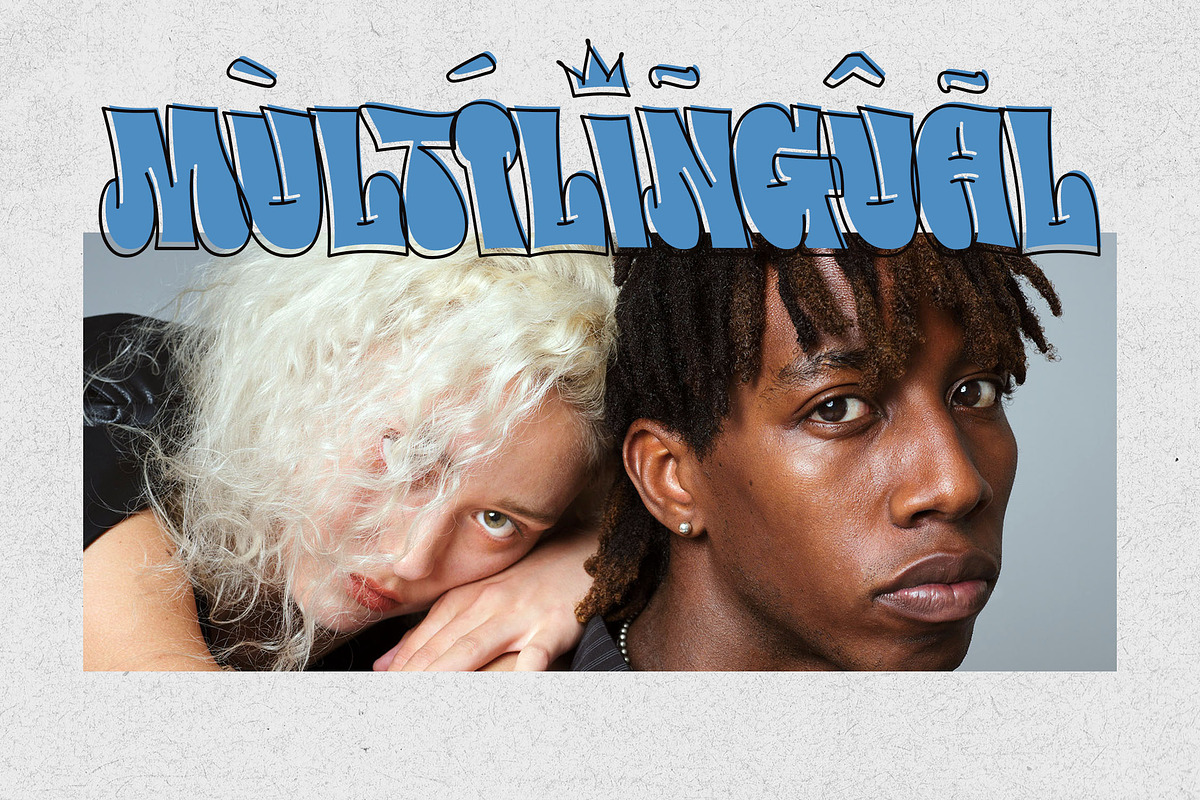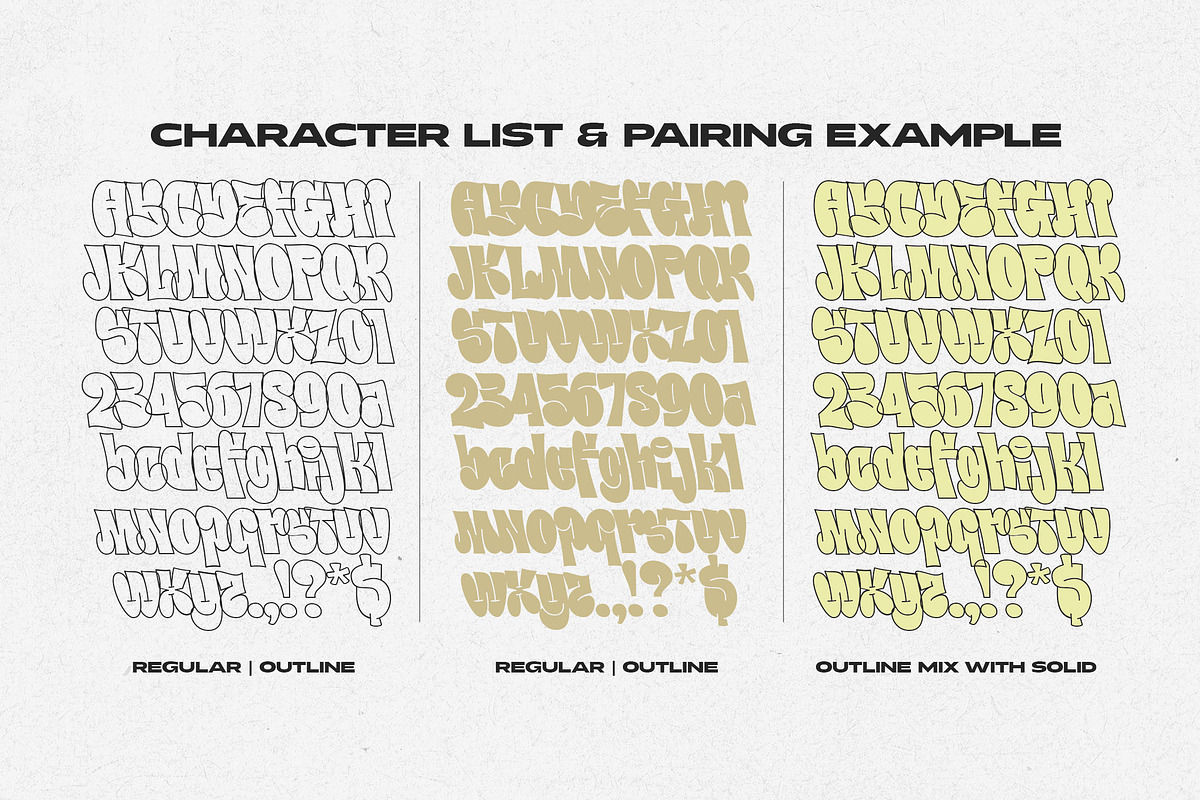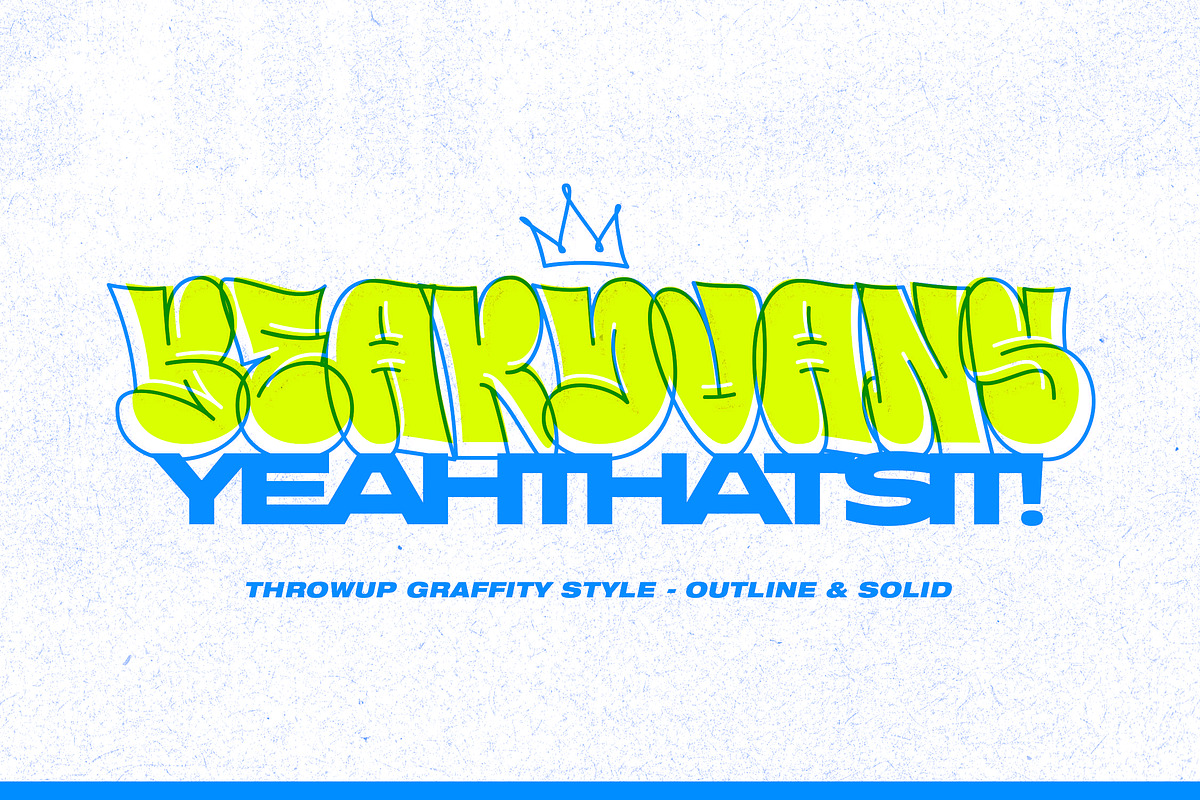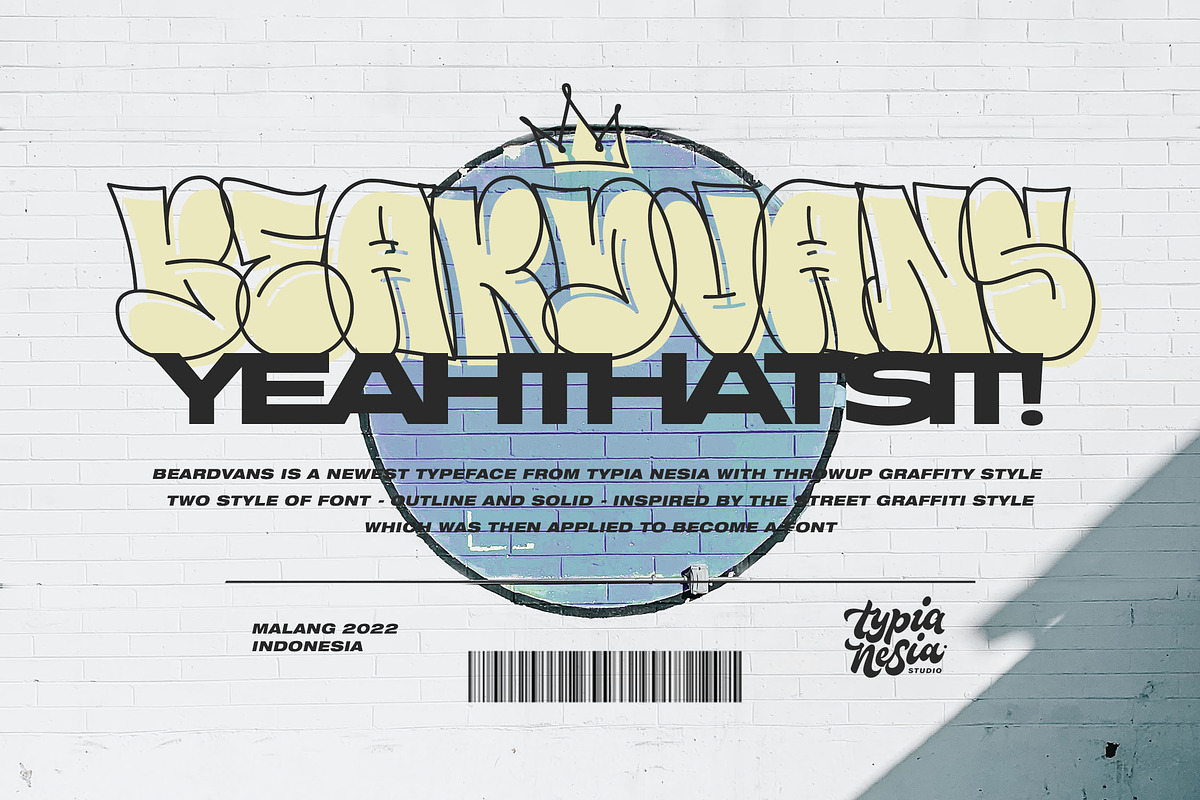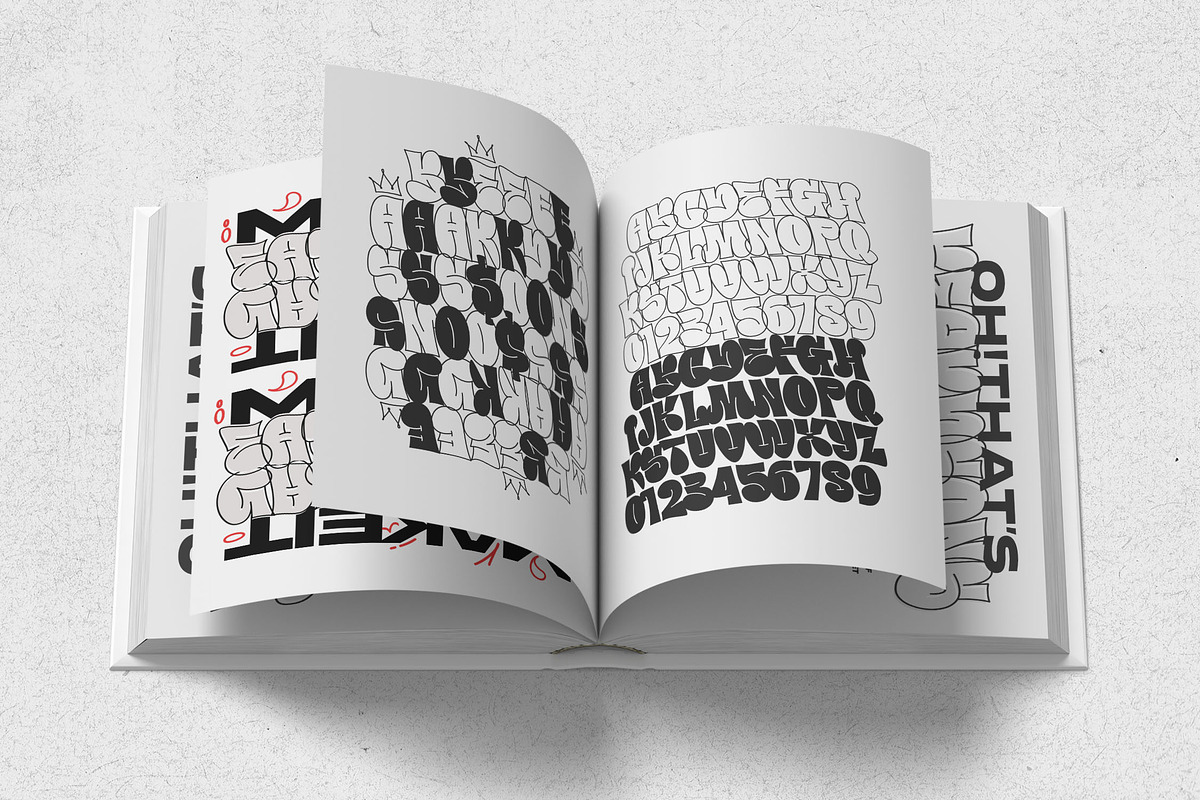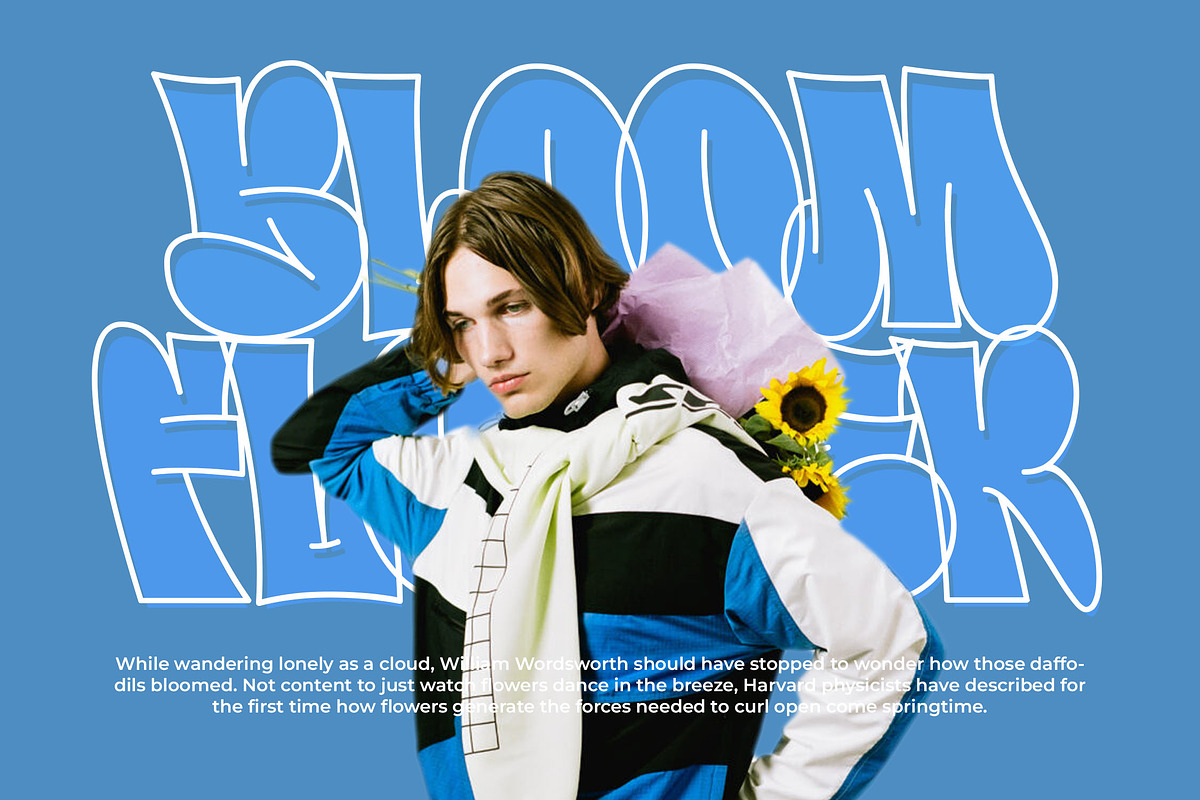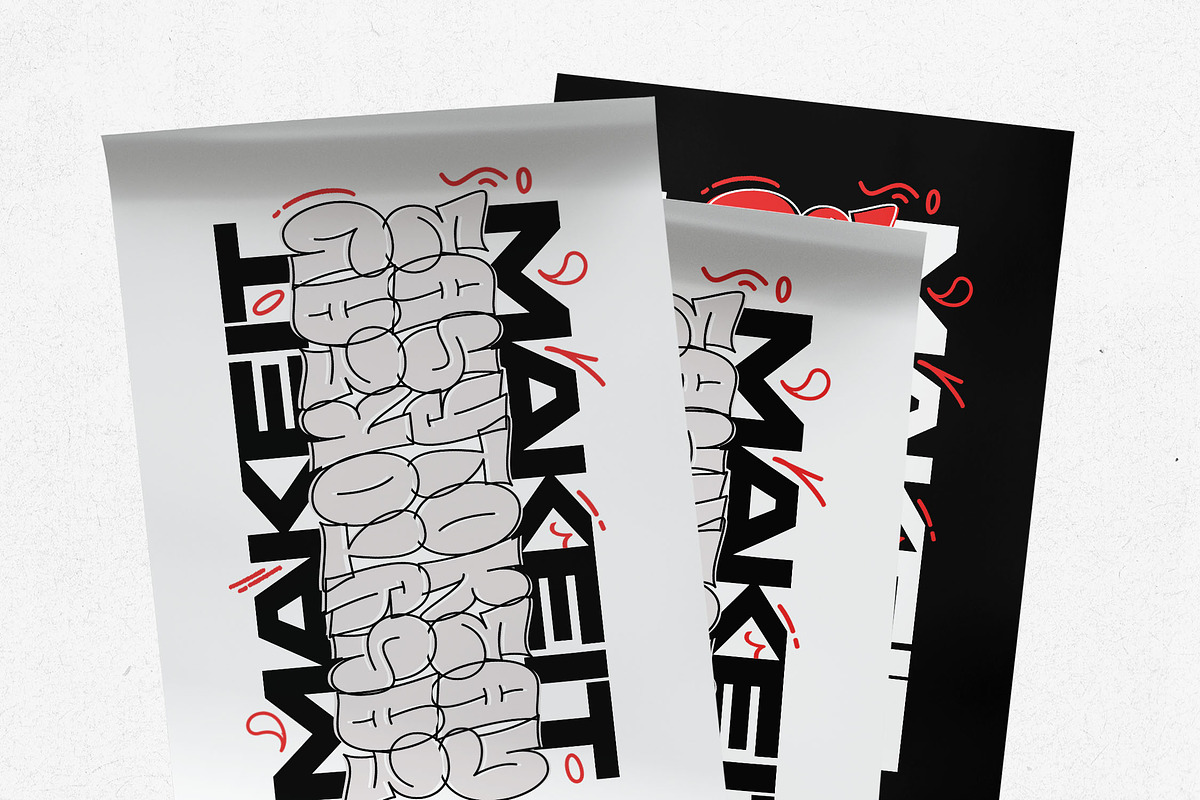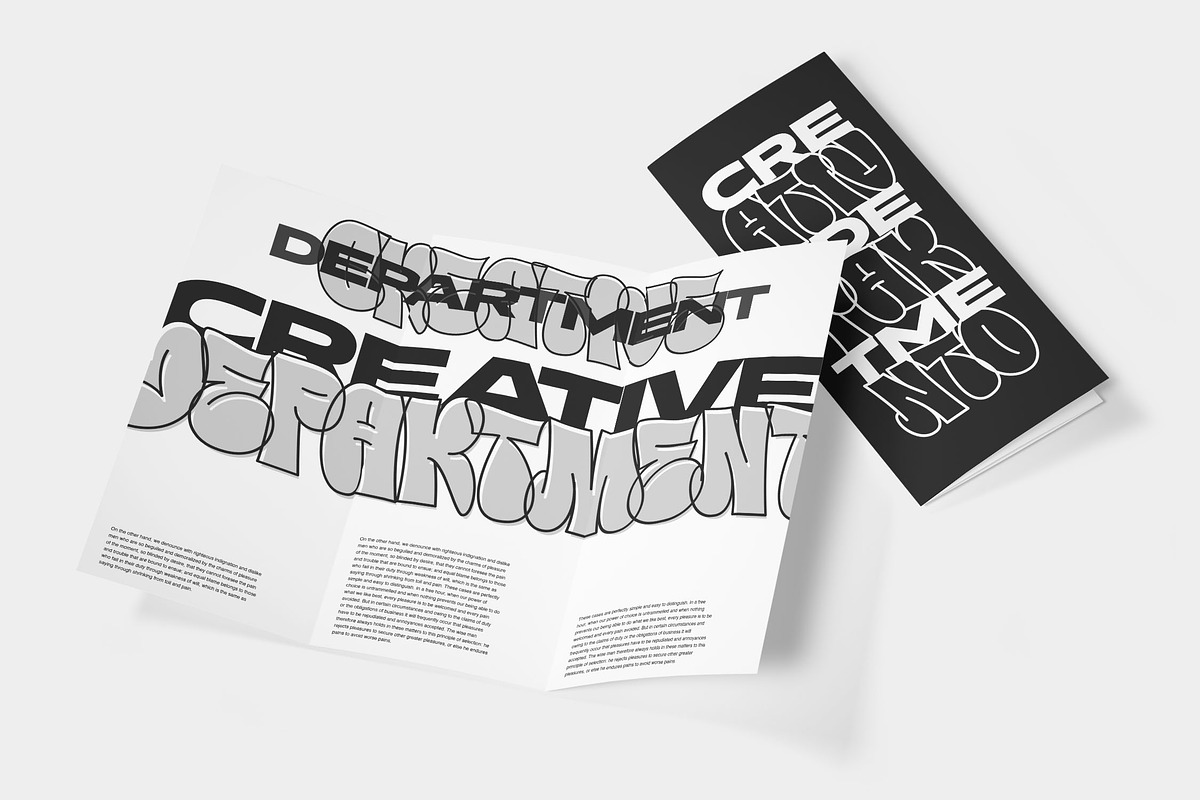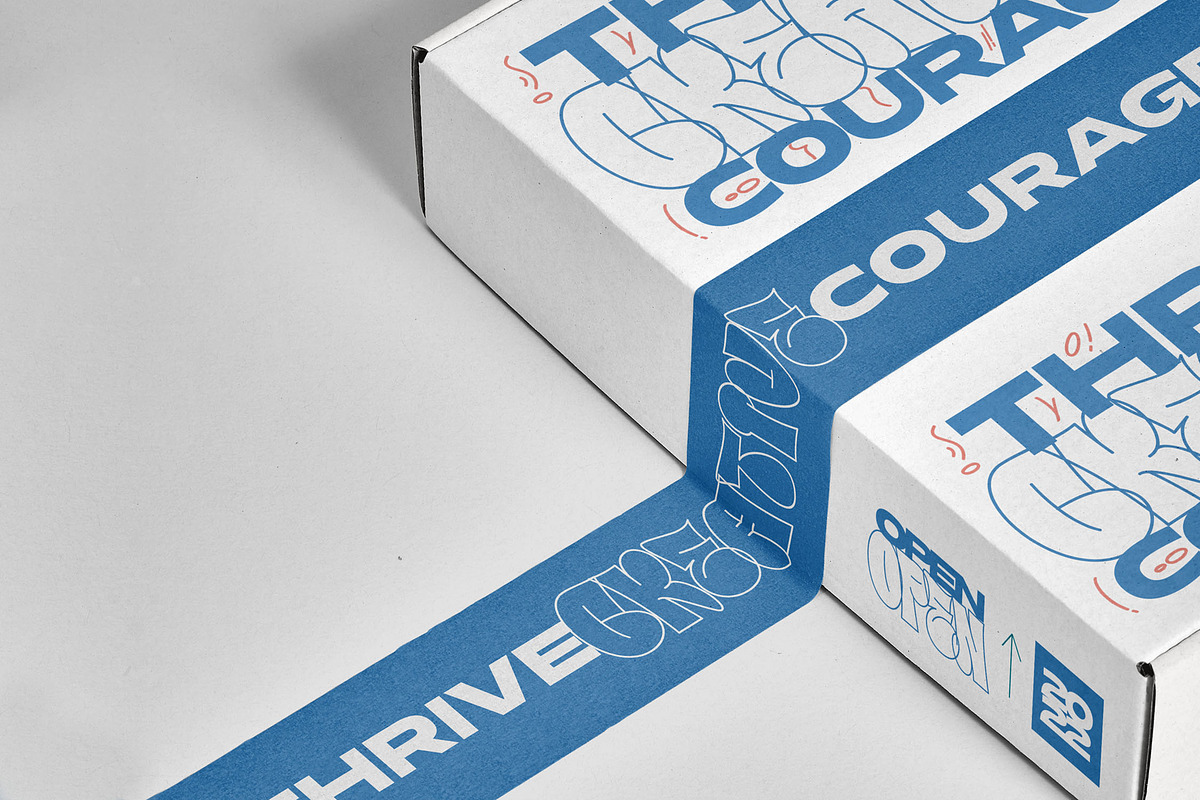
Beardvans - Throw-Up Graffiti Font
Beardvans - Modern Throw-Up Bubble / Balloon Graffiti Font - Street / Urban Culture Font - Sport Game and Music Display Font
Beardvans Font is perfect for your up coming projects. Such as logo branding, editorial design, sport design, game / gaming industry, music cover and poster, website design, modern advertising design, modern poster quote, book / magazine cover title, special events and any more.